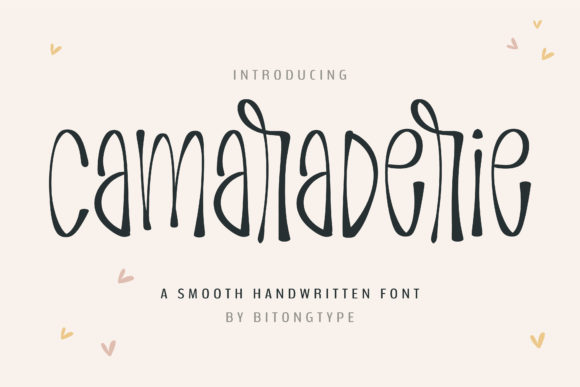
Camaraderie Font: The Perfect Addition to Your Design Arsenal
Are you a designer or crafter looking for a font that can add a touch of personality to your projects? Look no further than Camaraderie, a sweet and slightly quirky handwritten font that’s perfect for a wide range of designs. With its natural and unique style, Camaraderie is incredibly versatile and can be used in everything from branding and packaging to invitations and crafts.
The Charm of Camaraderie
Camaraderie is a handwritten font that’s full of character. Its natural, flowing lines and subtle imperfections give it a charming, homemade feel that’s perfect for designers who want to add a personal touch to their work. The font’s unique style is both sweet and quirky, making it perfect for projects that require a bit of whimsy and personality.
One of the best things about Camaraderie is its incredible versatility. The font’s natural and unique style makes it incredibly fitting to a large pool of designs, and the only limit is your imagination! Here are just a few ideas to get you started:
- Branding and Packaging: Use Camaraderie to create custom logos, labels, and packaging that stands out from the crowd.
- Invitations and Stationery: Add a touch of personality to your invitations, greeting cards, and stationery with Camaraderie’s charming handwritten style.
- Crafts and DIY: Use Camaraderie to create custom titles and labels for your crafts and DIY projects, such as scrapbooking, journaling, and more.
- Digital Design: Use Camaraderie in your digital designs, such as social media graphics, blog posts, and website headers.
Why Choose Camaraderie?
So why choose Camaraderie over other fonts? Here are just a few reasons why designers and crafters love this font:
- Unique Style: Camaraderie’s natural and unique style sets it apart from other fonts and makes it perfect for designers who want to add a personal touch to their work.
- Versatility: Camaraderie can be used in a wide range of designs, from branding and packaging to invitations and crafts.
- Easy to Read: Despite its quirky style, Camaraderie is easy to read and can be used in both large and small sizes.
- High-Quality: Camaraderie is a high-quality font that’s designed to deliver exceptional results in your designs.
Tips for Using Camaraderie
Here are a few tips for getting the most out of Camaraderie:
- Experiment with Sizes: Camaraderie looks great in both large and small sizes, so don’t be afraid to experiment with different sizes to find the one that works best for your design.
- Pair with Other Fonts: Camaraderie pairs well with other fonts, so try combining it with a bold font for headings and a clean font for body text.
- Use in Combination with Images: Camaraderie looks great in combination with images, so try using it to add text to your photos or illustrations.
Camaraderie is a sweet and slightly quirky handwritten font that’s perfect for designers and crafters who want to add a personal touch to their work. With its natural and unique style, Camaraderie is incredibly versatile and can be used in a wide range of designs. Whether you’re creating branding and packaging, invitations and stationery, or crafts and DIY projects, Camaraderie is the perfect addition to your design arsenal.